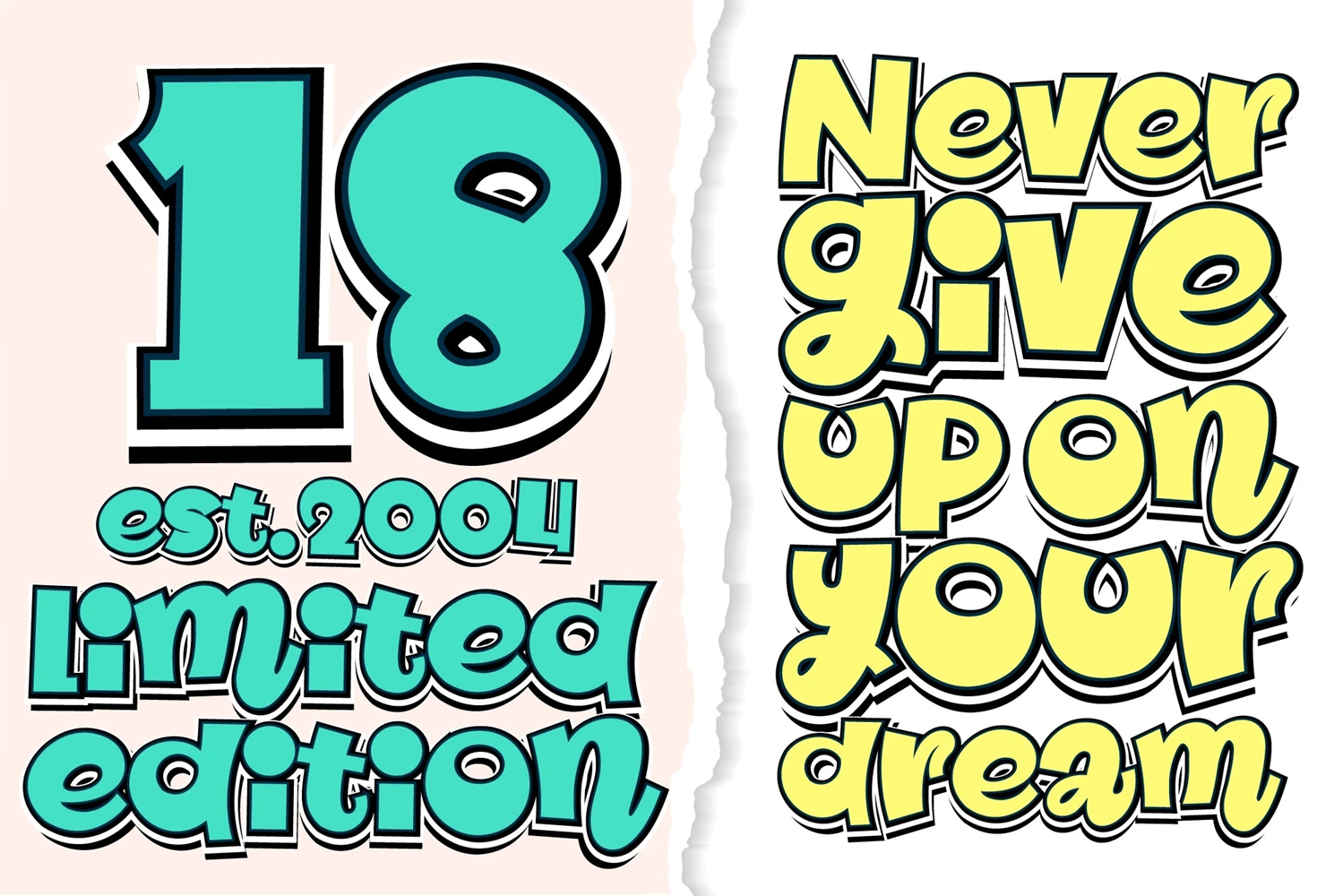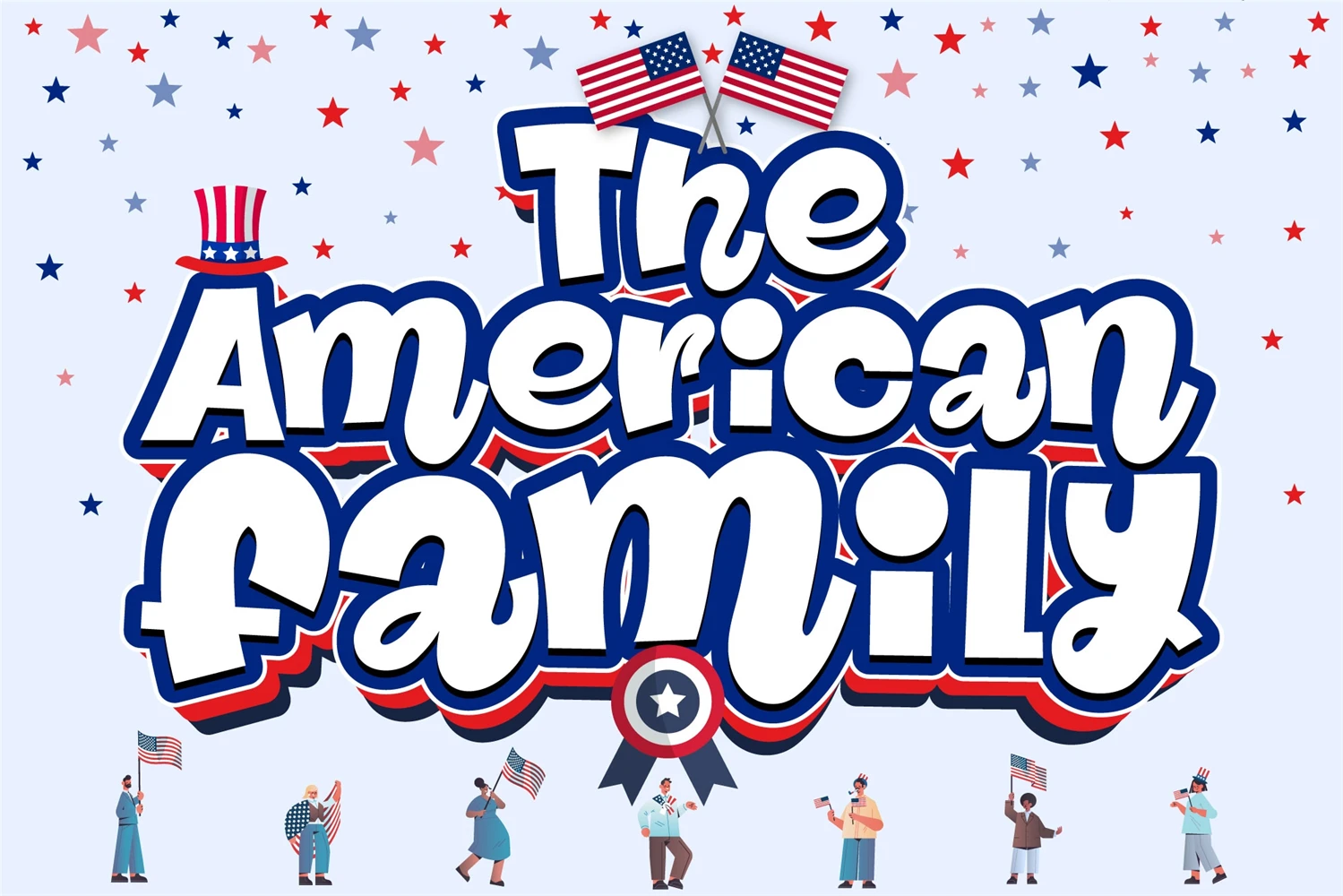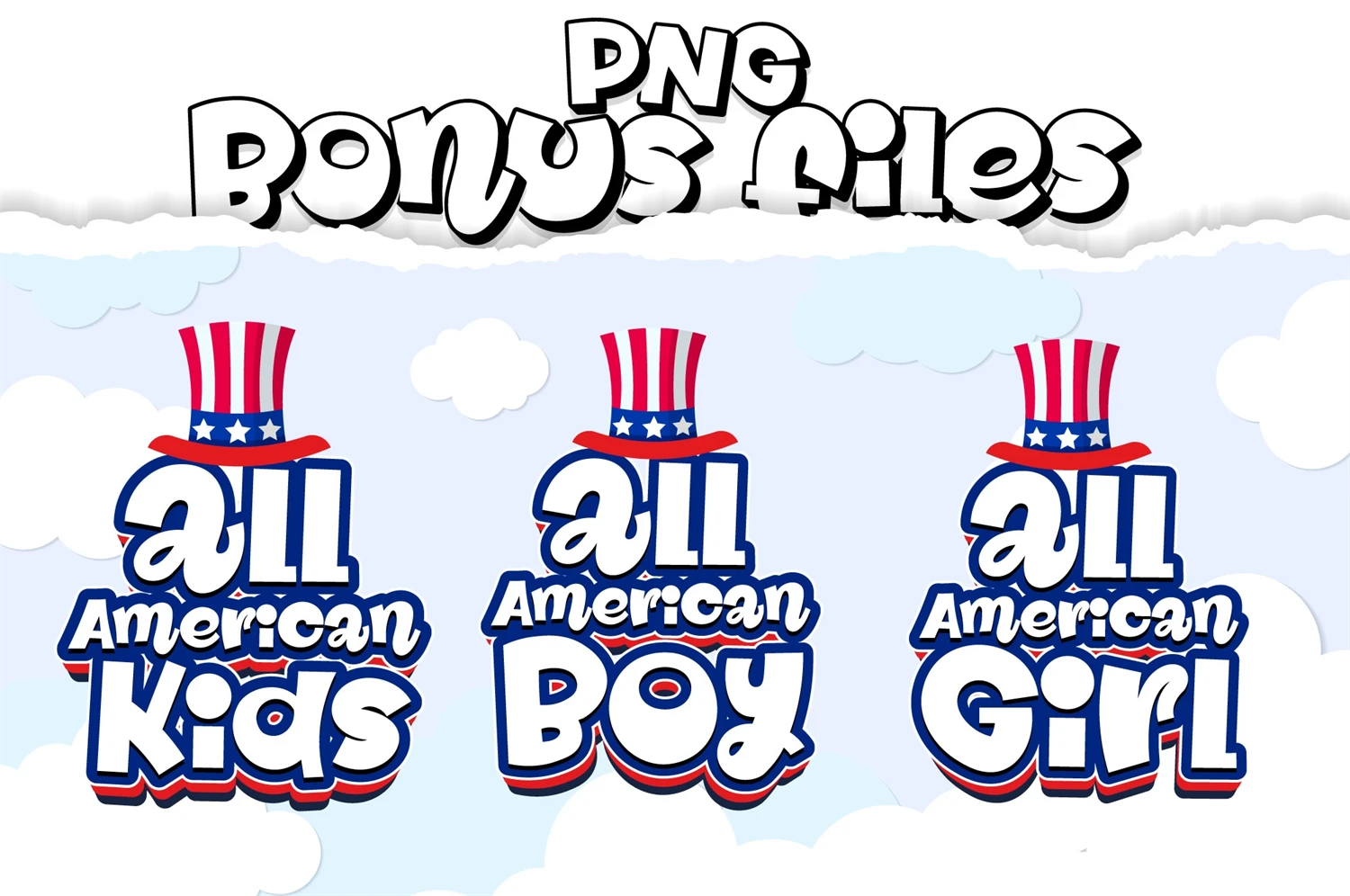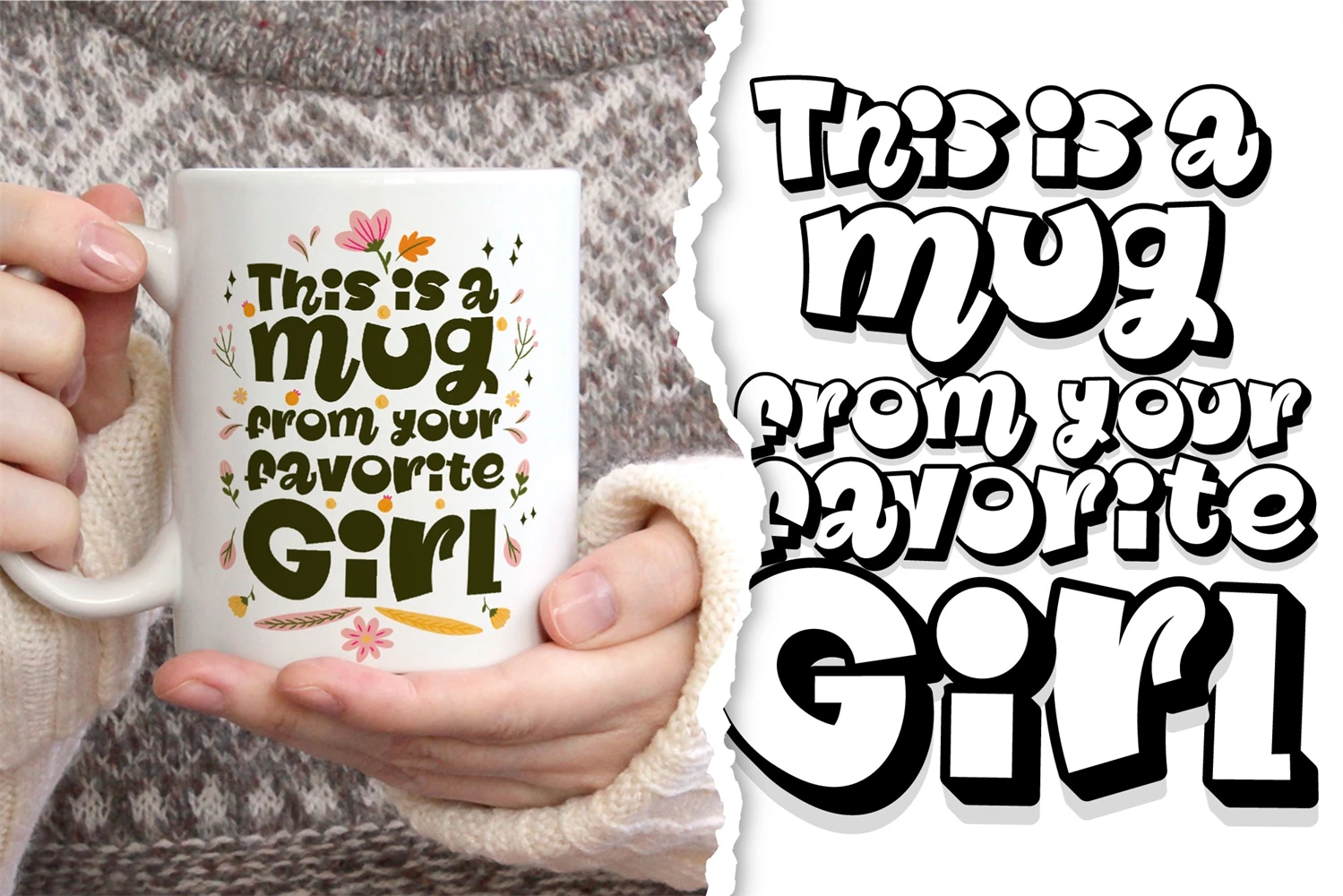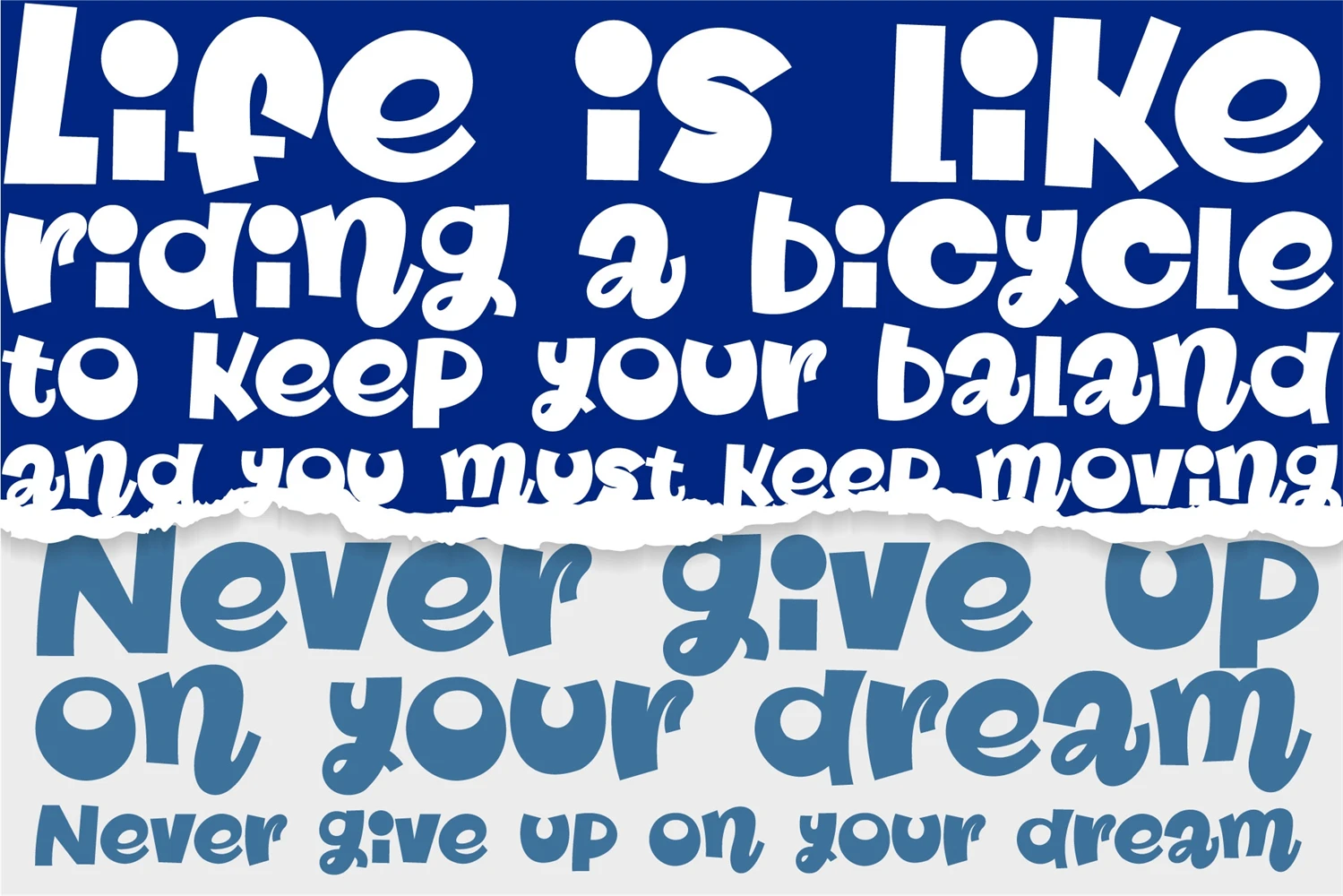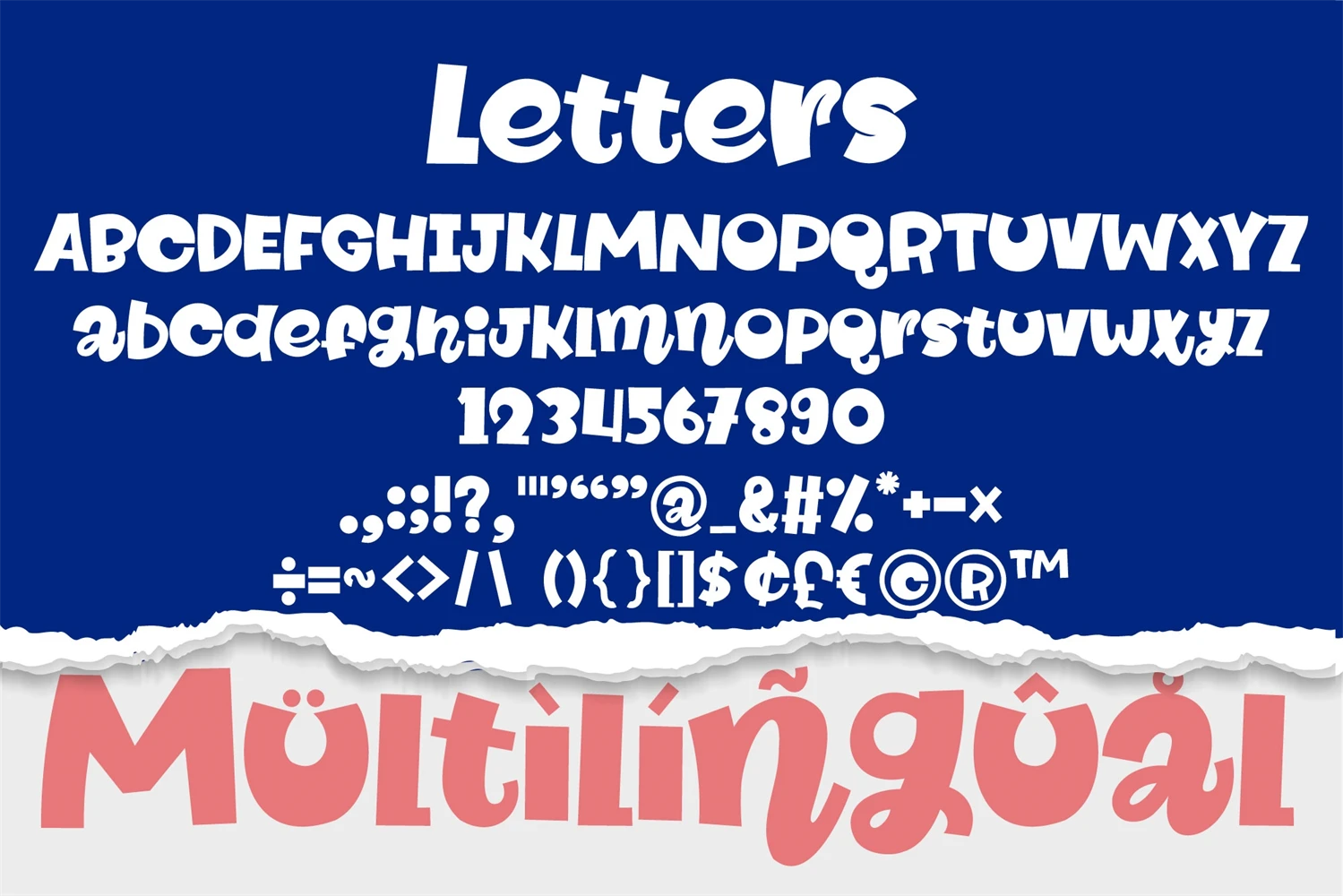
The American Family Font is a bold and thick lettered display font that exudes strength and versatility. With its robust and confident character, this font is perfect for various branding projects, including logos, t-shirt printing, creative products, and much more. The American Family Font makes a powerful statement, adding a touch of boldness and impact to your designs. Its carefully crafted letterforms ensure readability while making a lasting impression. Unleash your creativity and elevate your projects with The American Family Font.